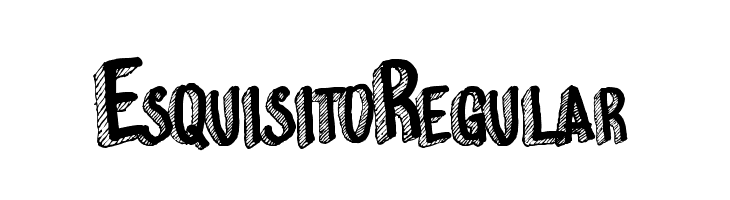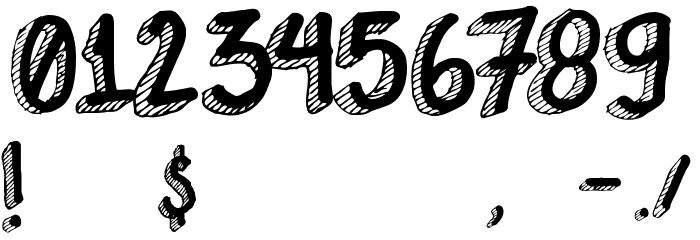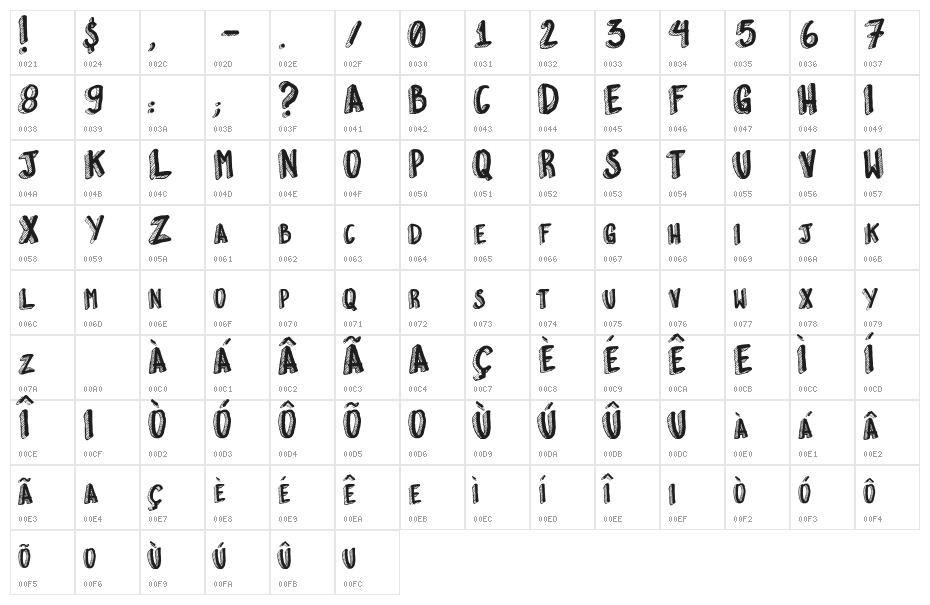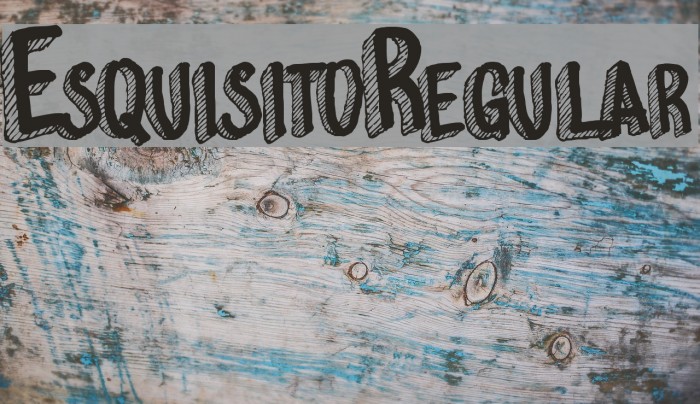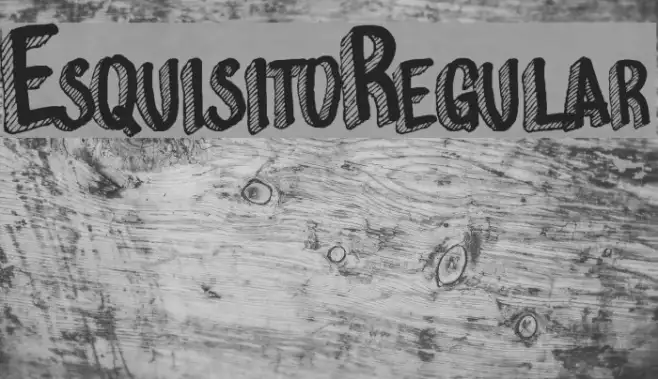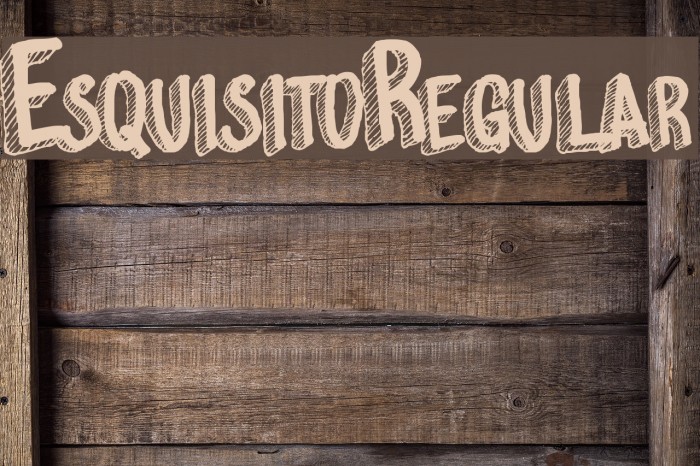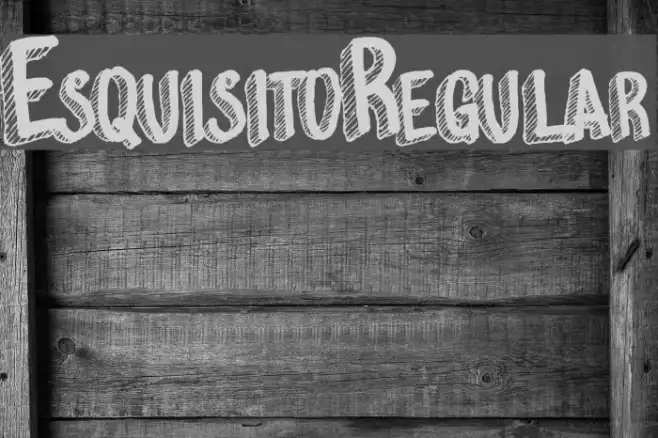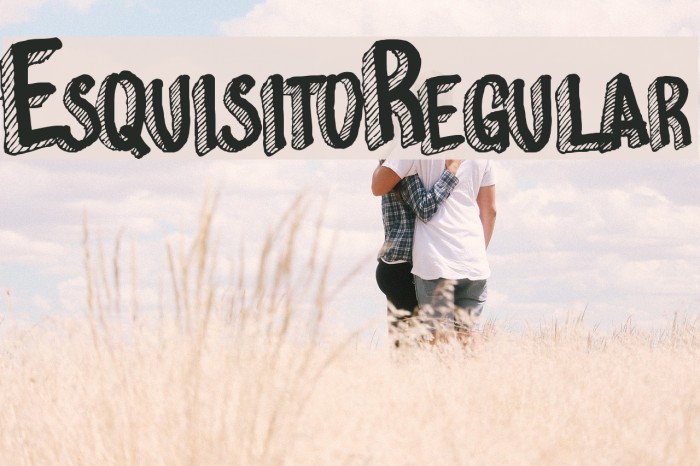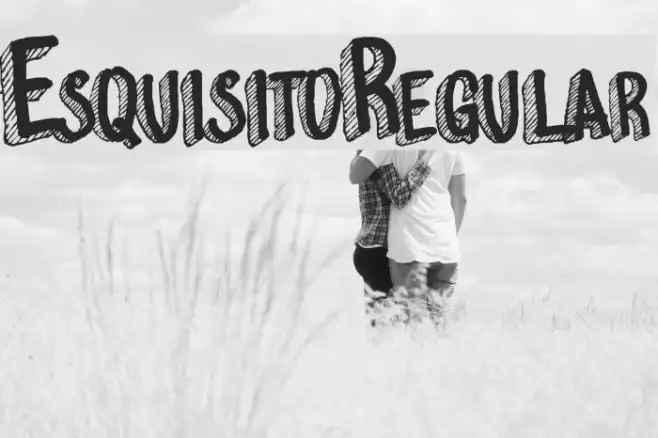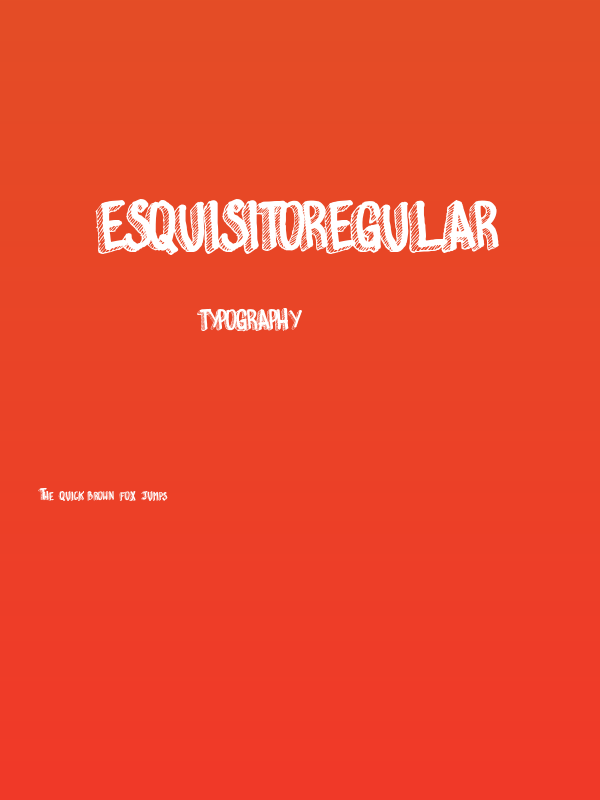
EsquisitoRegular Font
EsquisitoRegular Description
This font features a playful, hand-drawn style with a bold and sketch-like appearance. Each character is filled with diagonal lines, giving it a textured, dynamic look. The uppercase and lowercase letters maintain a consistent style, with rounded edges and a slightly irregular form that adds to its casual charm. Numbers and special characters follow the same design, ensuring uniformity across all elements. The font's unique aesthetic makes it stand out, ideal for projects that require a fun and informal touch.
| Overall Style | Playful, Artistic |
| Proposed Projects | Ideal for comic books, children's books, playful branding, posters, and creative social media graphics. |